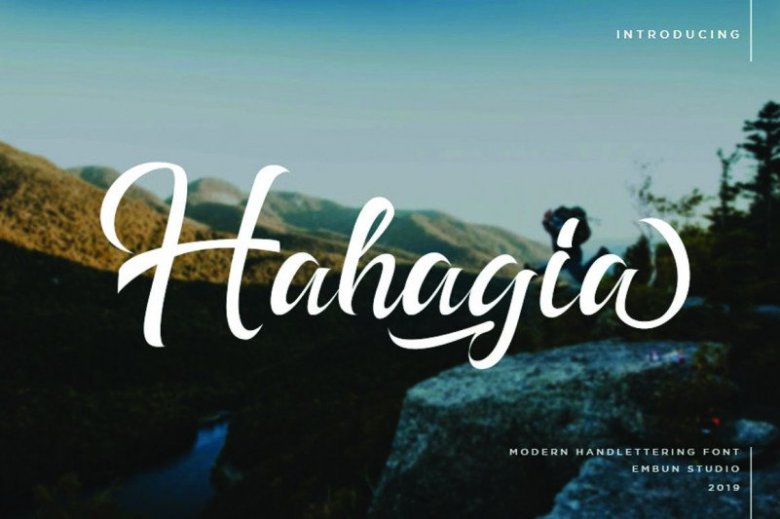
Hahagia Font
Hahagia Font,
modern handlettering font, good for your every project, like logo, brochure, wedding invitation, suitable on your cafe front and more project for your business